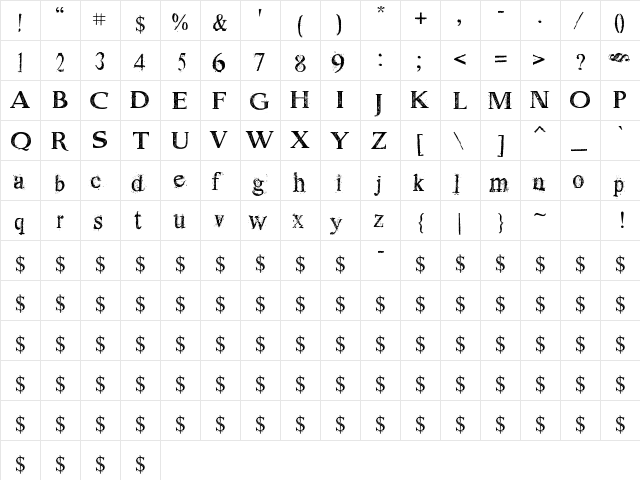
Dust Serif Regular
Design Context for Dust Serif Typeface
Dust Serif carries the refined structure of traditional serif typography, with bracketed terminals and considered proportions that communicate credibility and craft.
Pro Tip: Set Dust Serif with slightly loose tracking in headlines to let each letterform's detail read clearly at display sizes.